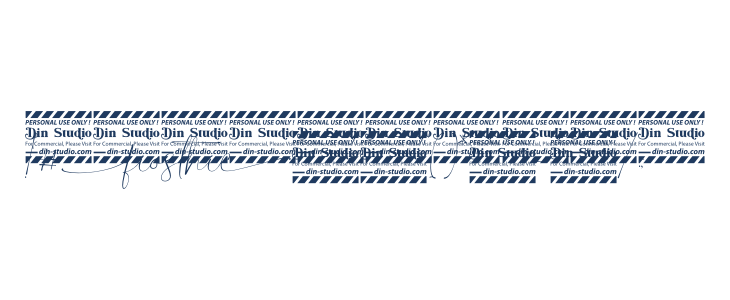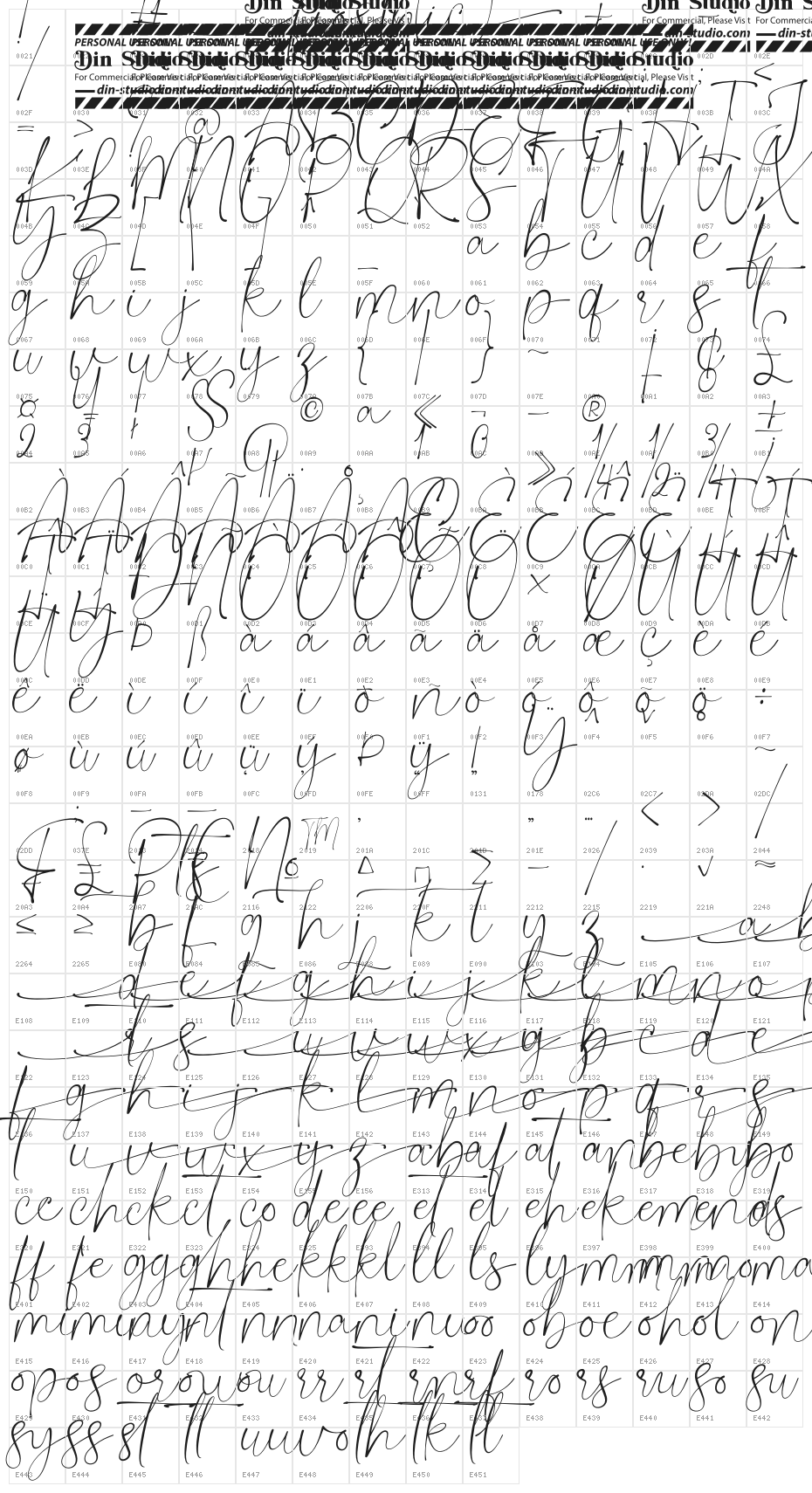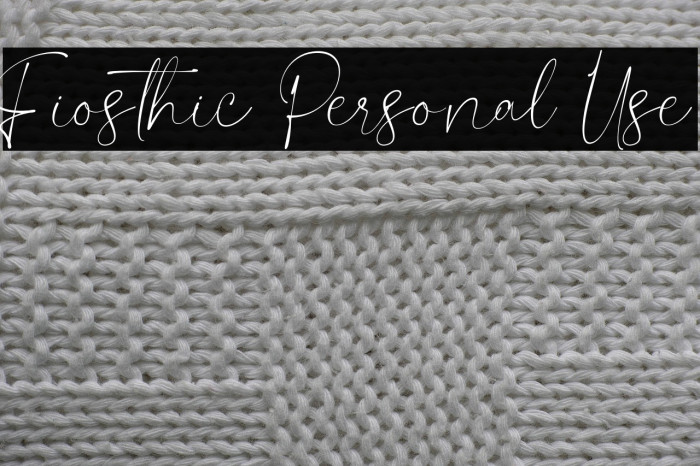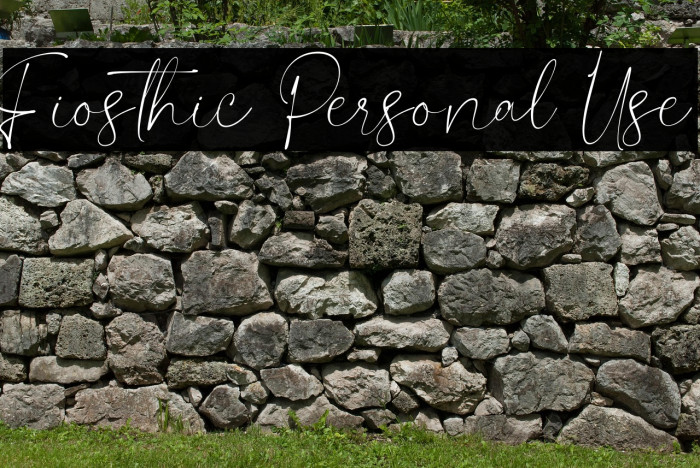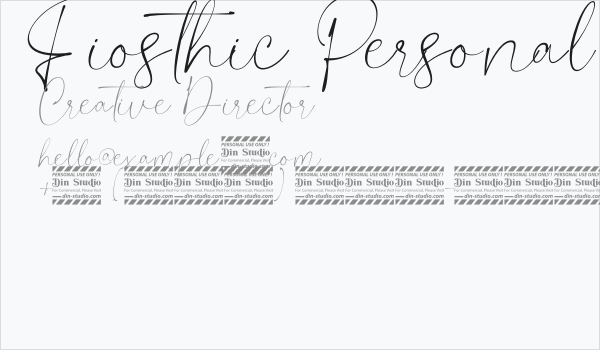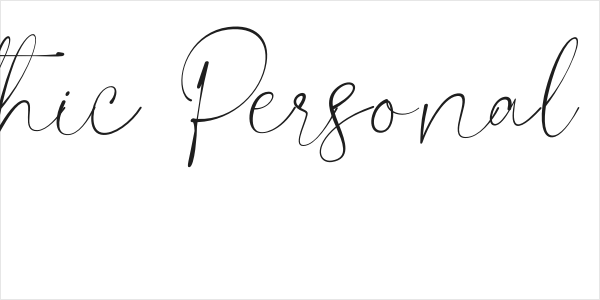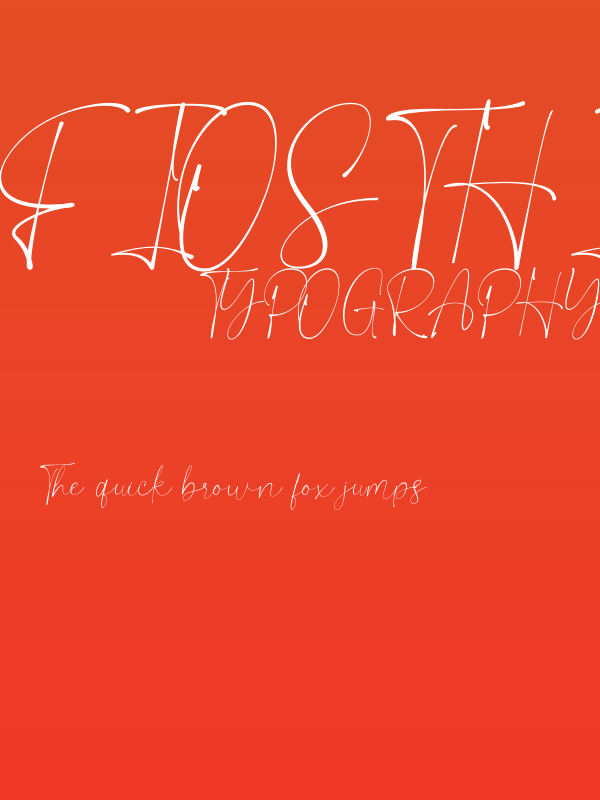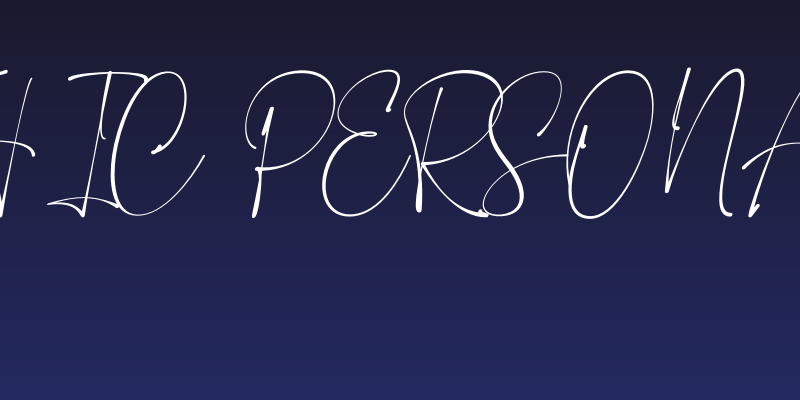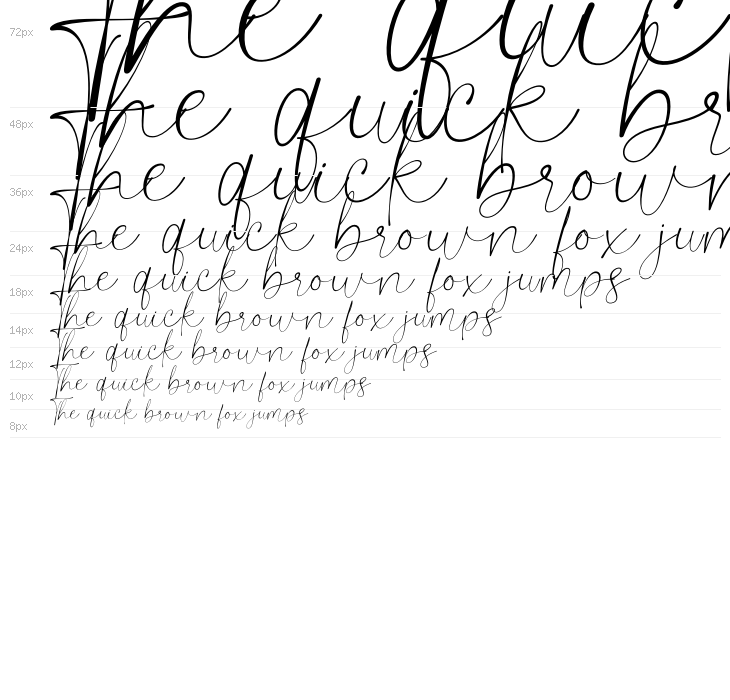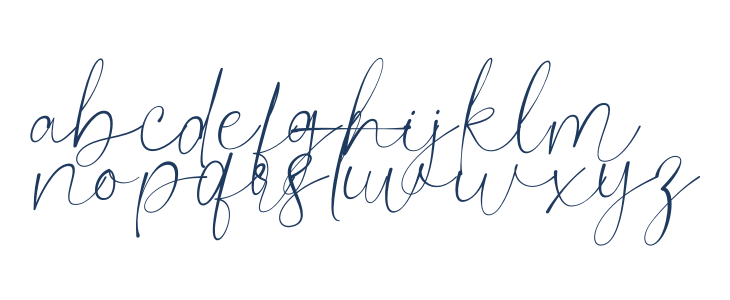
Fiosthic Personal Use Font
Fiosthic Personal Use Description
This font features a flowing, cursive style with elegant loops and swashes, giving it a handwritten appearance. The characters are interconnected, creating a seamless and fluid look. The strokes vary in thickness, adding a dynamic and artistic flair. The uppercase letters are bold and prominent, while the lowercase letters maintain a delicate and graceful form. This font exudes a sense of sophistication and creativity, making it ideal for projects that require a personal touch.
Proposed ProjectsIdeal for wedding invitations, greeting cards, personal branding, and creative projects that require a touch of elegance and personality.